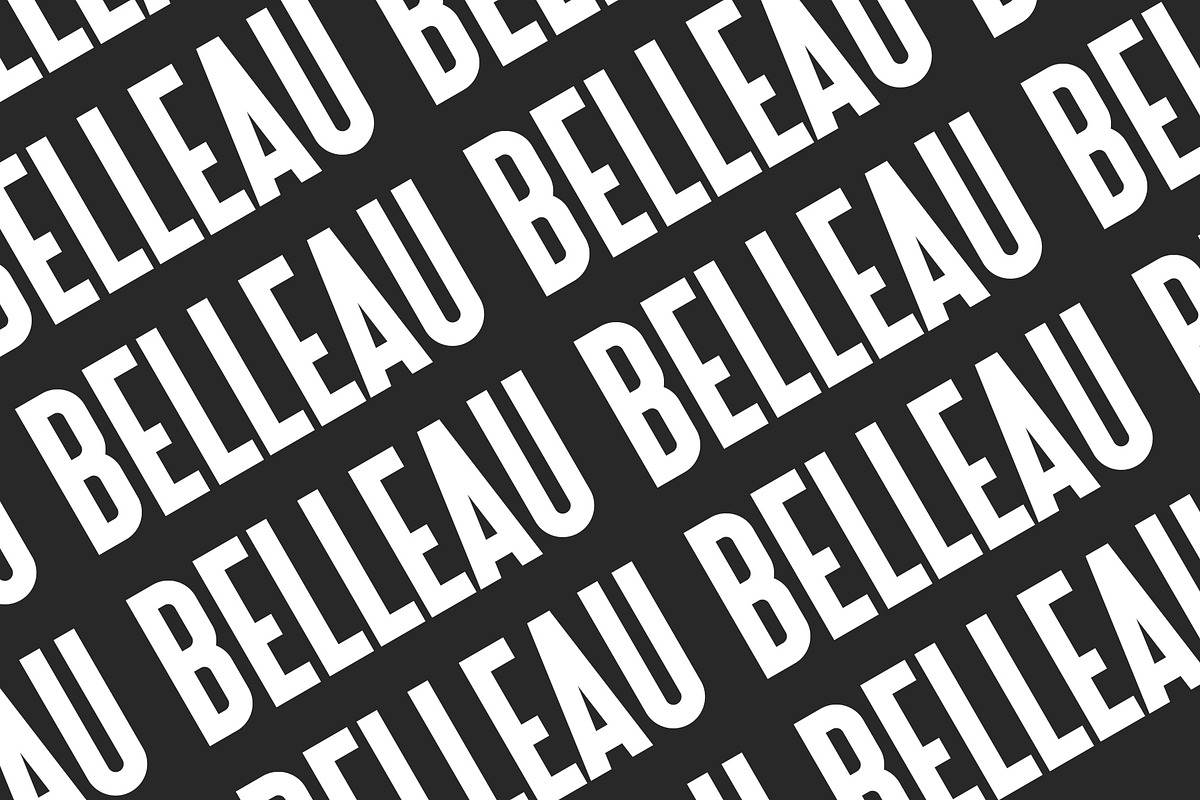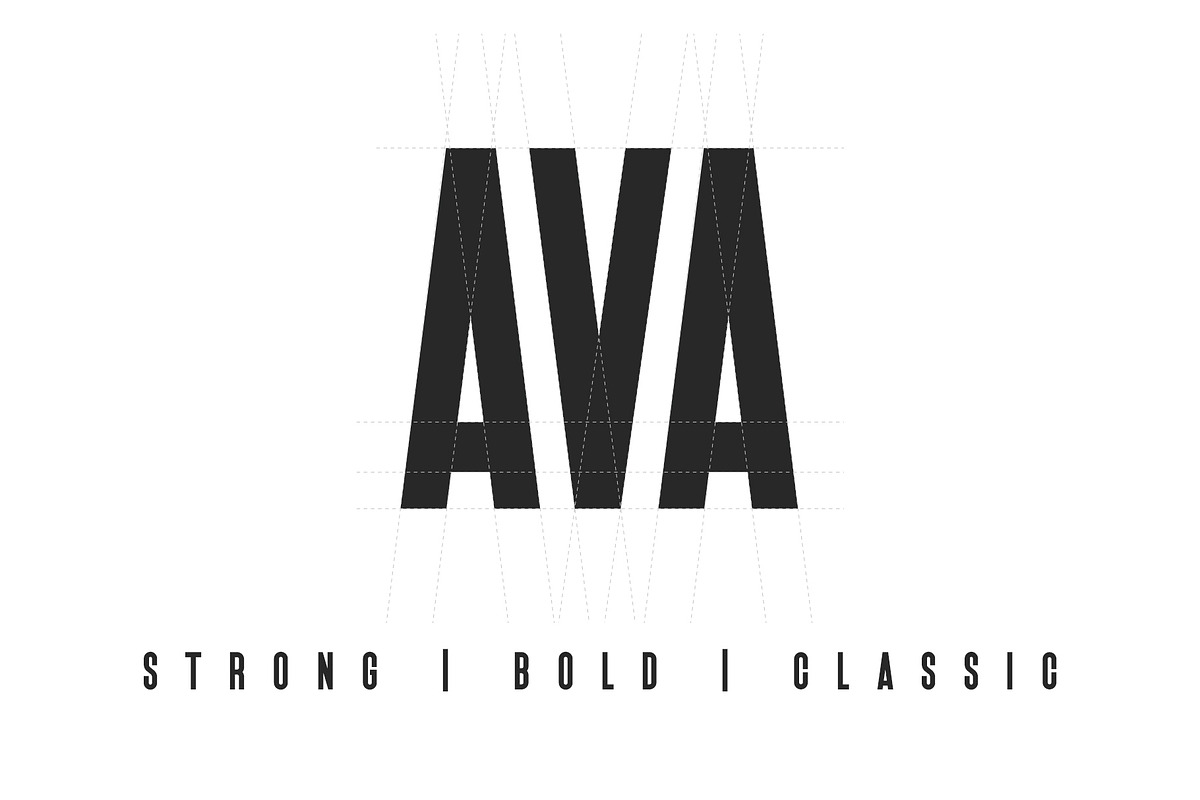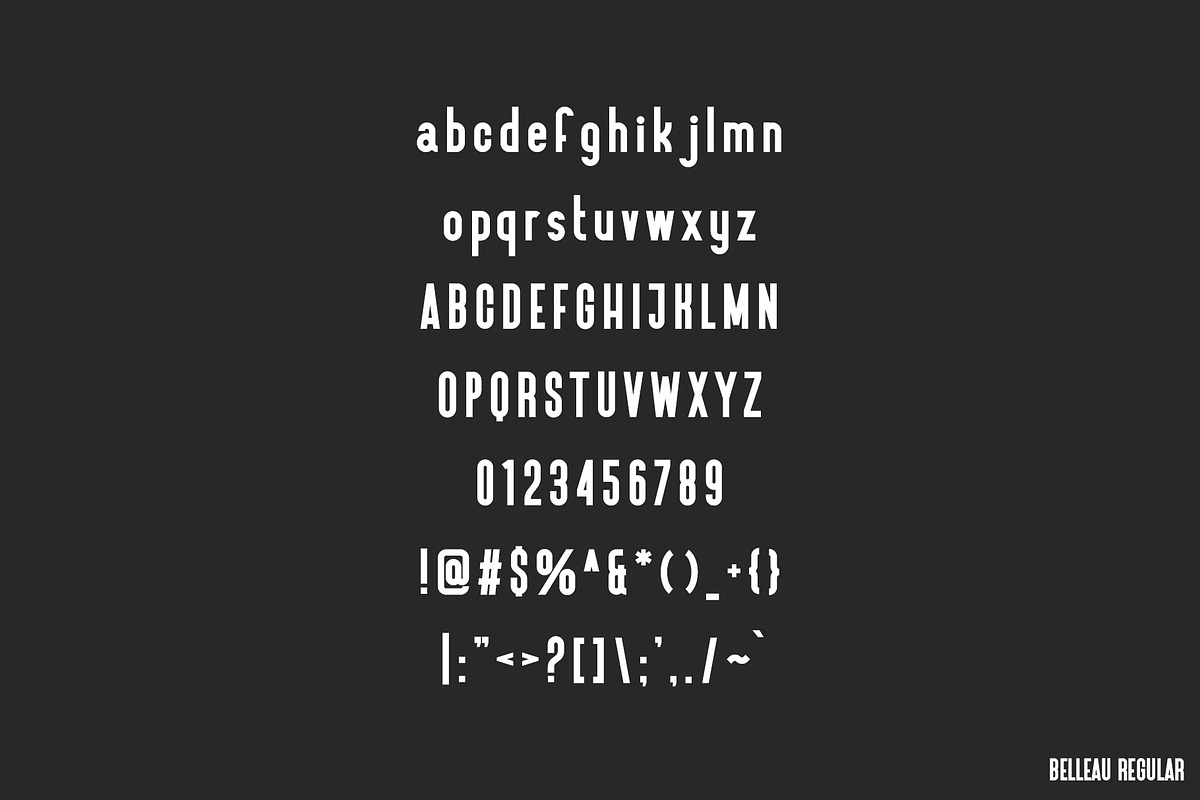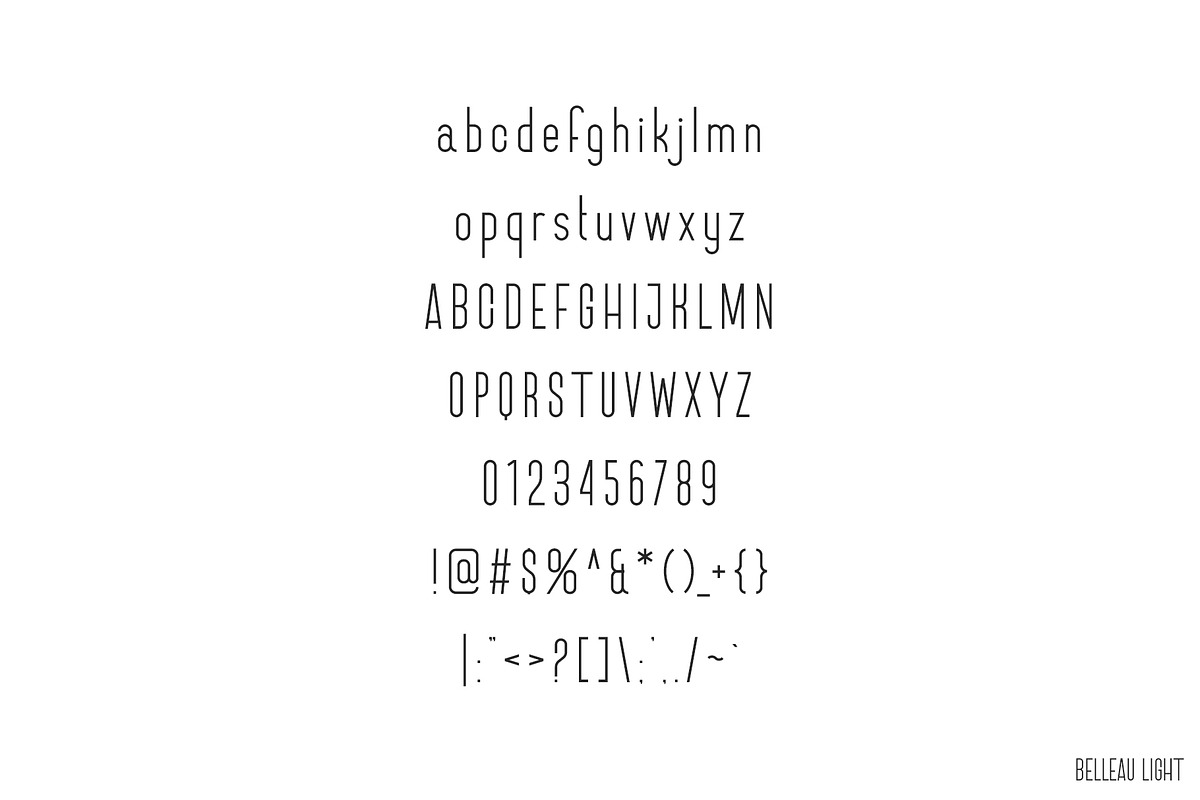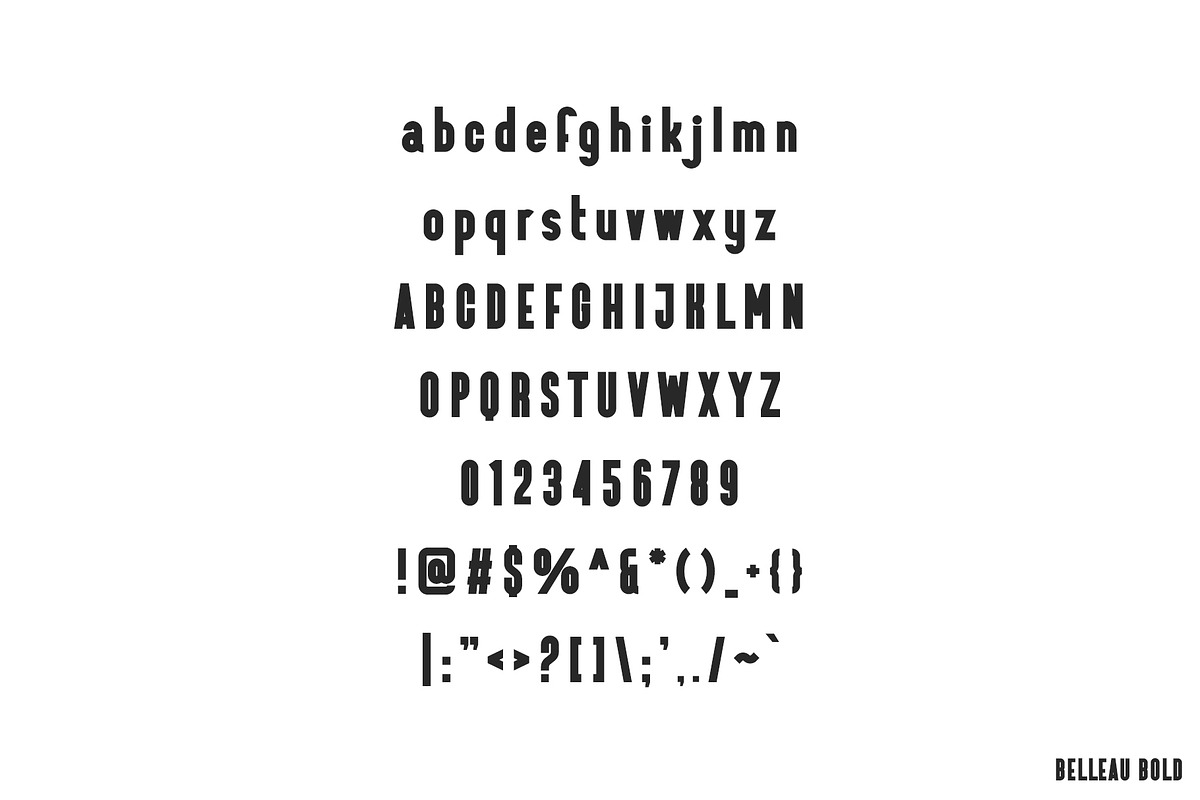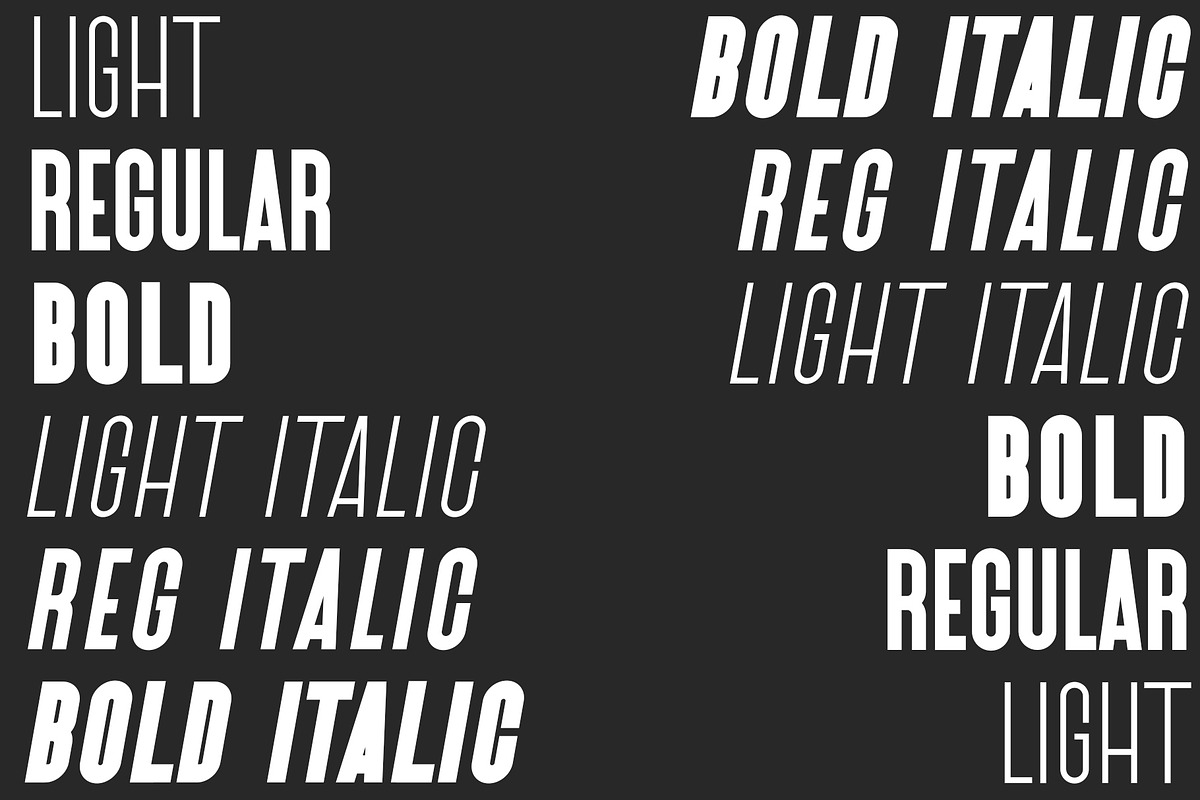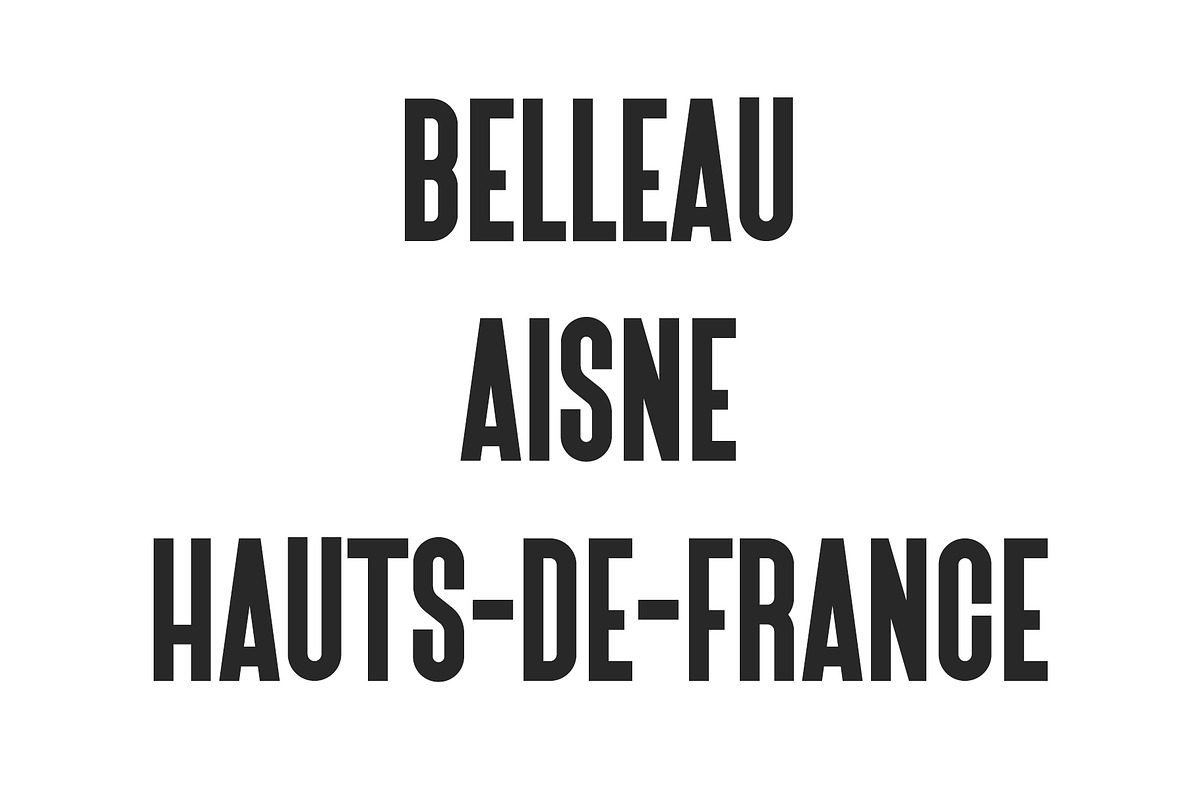
Belleau | Sans Serif Font Family
Belleau is a clean, bold sans serif font perfect for creating strong and impactful designs
Great for designing bold logos, attention grabbing posters, business cards or anything in between. With strong letterforms, this font is perfect for making a statement and staying bold with your designs.
Three weights (Light, Regular & Bold)
Italics included (Light, Regular & Bold)
Complete range of numbers, symbols and punctuation.